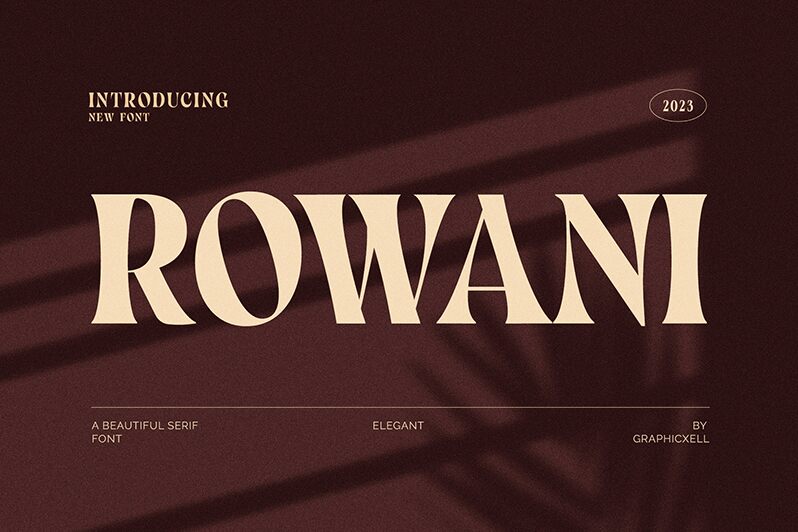
Rowani font by Graphicxell is an elegant modern serif font with a refined yet timeless style. Its sophisticated design blends classic influences with a contemporary touch, allowing for versatile applications. The font’s tasteful geometry conveys professionalism and luxury, making it perfect for projects where style and class are needed. This free font is a beautiful aesthetic complement for wedding-themed projects, posters, and more.
Serif fonts such as Rowani are great at capturing attention which is why they are often a favorite in advertising. Other creative uses include portfolios, magazines, branding projects, social media posts, and product labels.